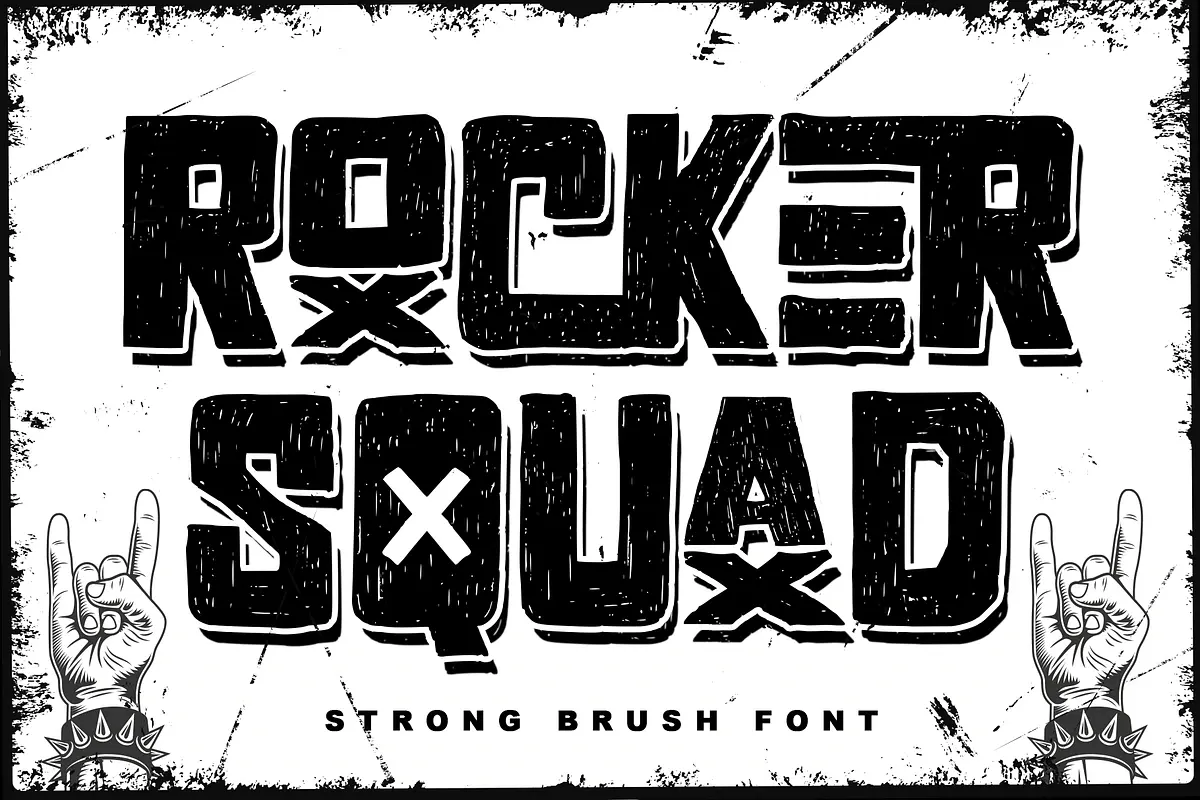
Please note, you must purchase this font for commercial use. However, you can easily download Rocker Squad Font Free Download for personal use and testing purposes. Rocker Squad Font is a bold, edgy typeface that combines sharp, strong letterforms with a cool, rebellious aesthetic. Perfect for projects that need a rock-inspired look, this font works great for band logos, event posters, merchandise, branding, and more. Whether you're designing for a music festival, creating promotional materials, or working on a creative branding project, Rocker Squad Font Free Download will bring a unique and energetic touch to your typography. Download Rocker Squad Font Free Download today and explore its potential before opting for a commercial license.